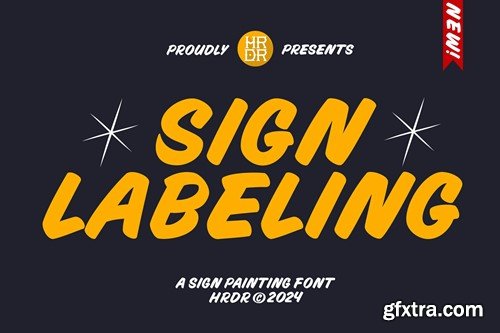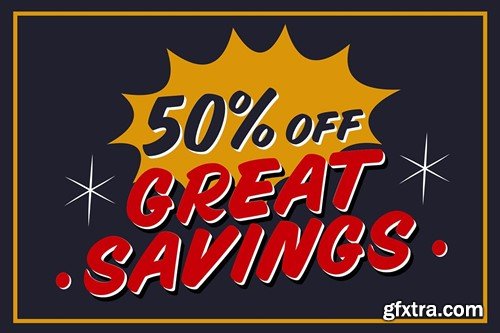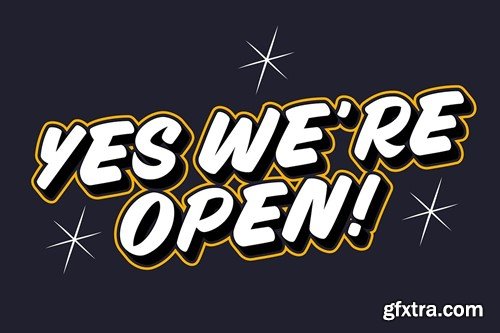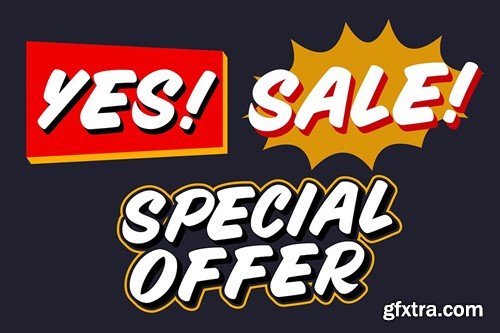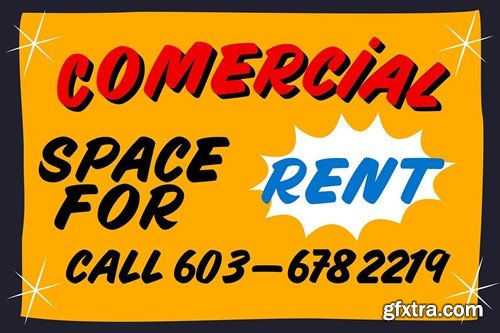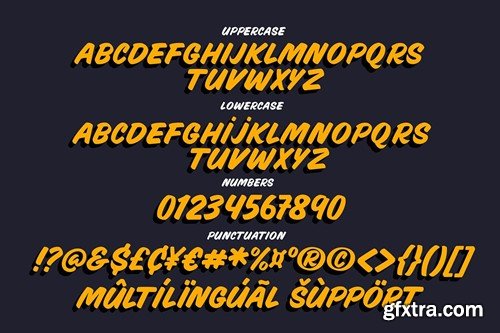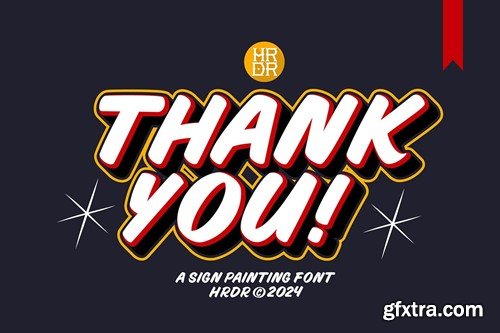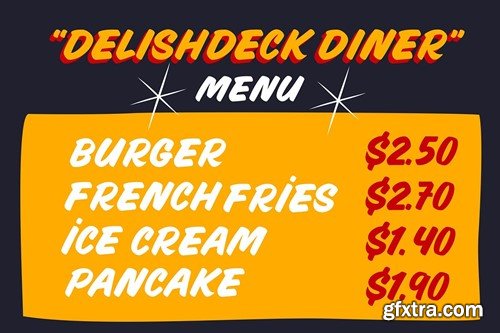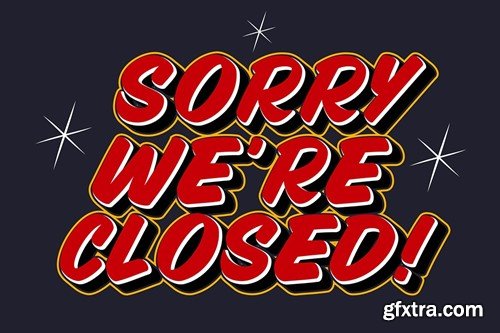
Sign Labeling - A Sign Painting Font
Sign Labeling is a sign painting all caps font, perfect for of handwritten chalkboard signs in restaurants, bars, shops or on the market and Posters, product designs, label, Posters or anything. Sign Labeling font comes with a full set of uppercase and lowercase letters, ligatures, multilingual symbols, numerals, and punctuation. Sign Labeling files with OTF and TTF file and support PUA Encoded font files for use with software that doesn't support OpenType features such as Silhouette, Inkscape, etc.